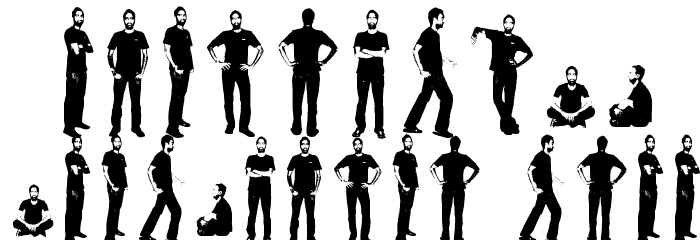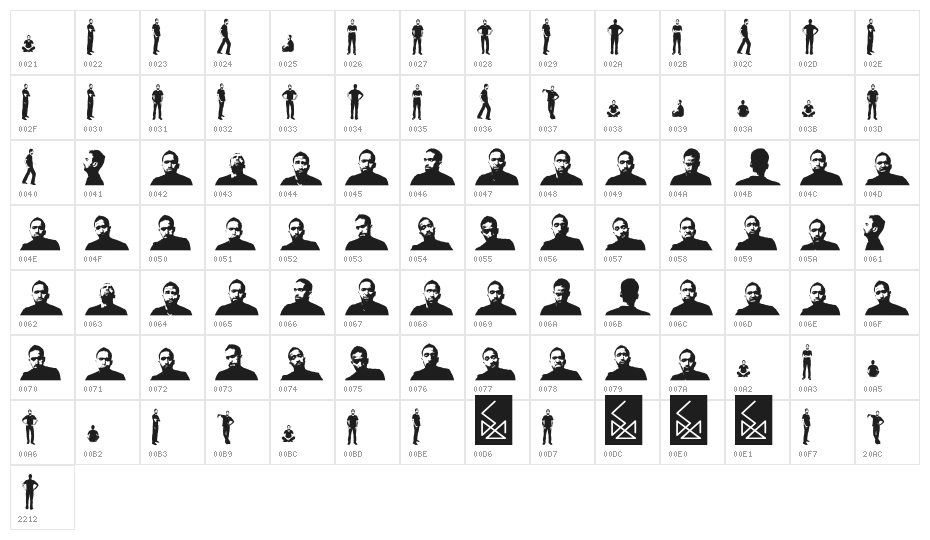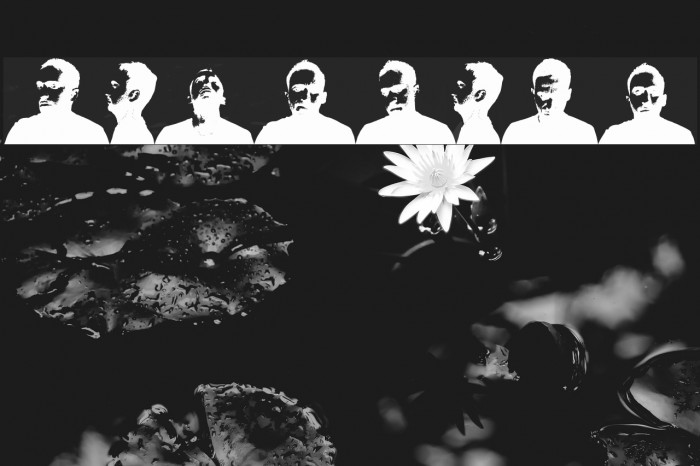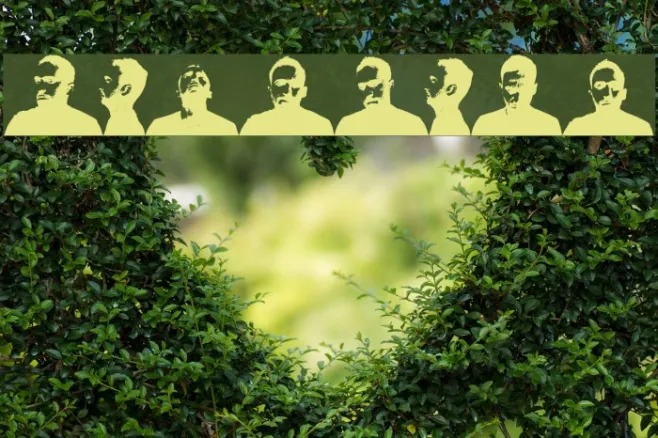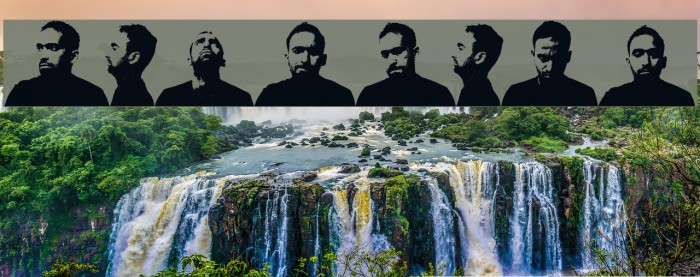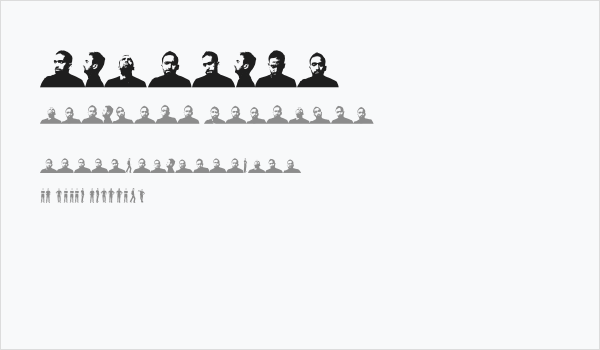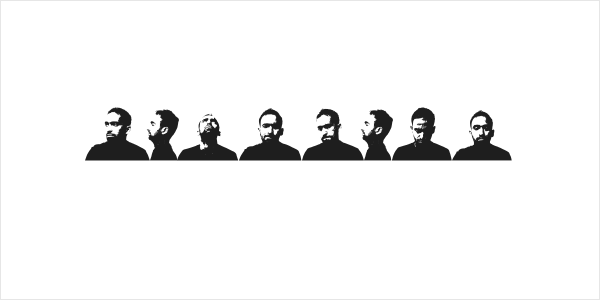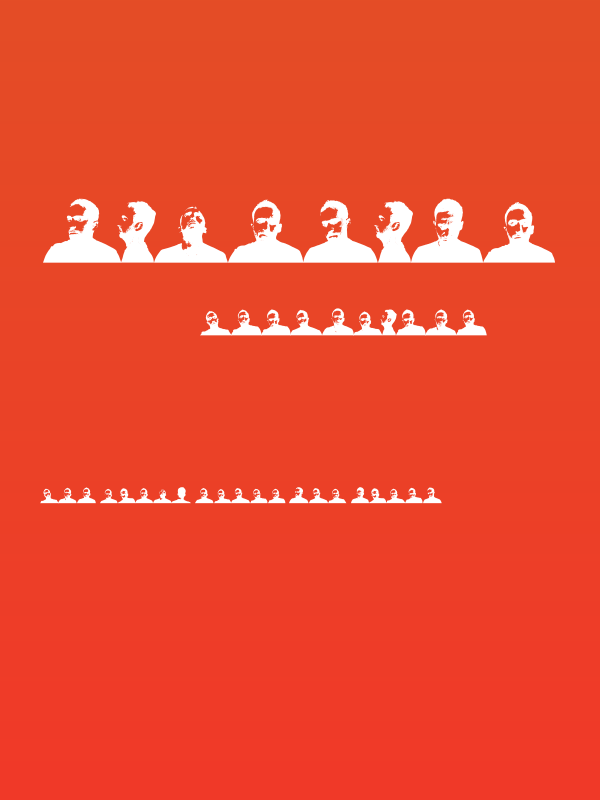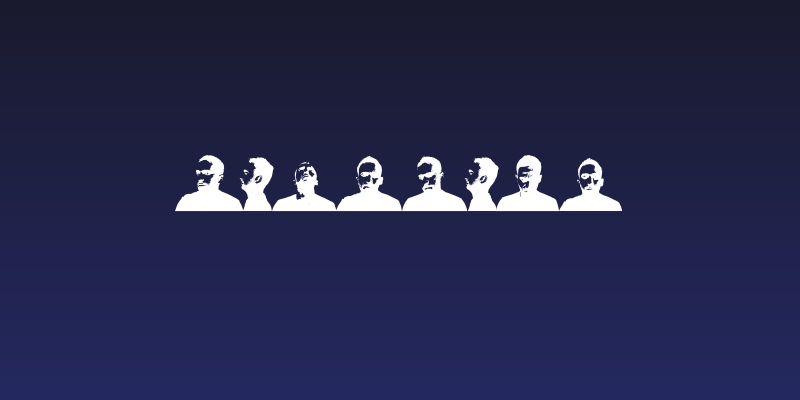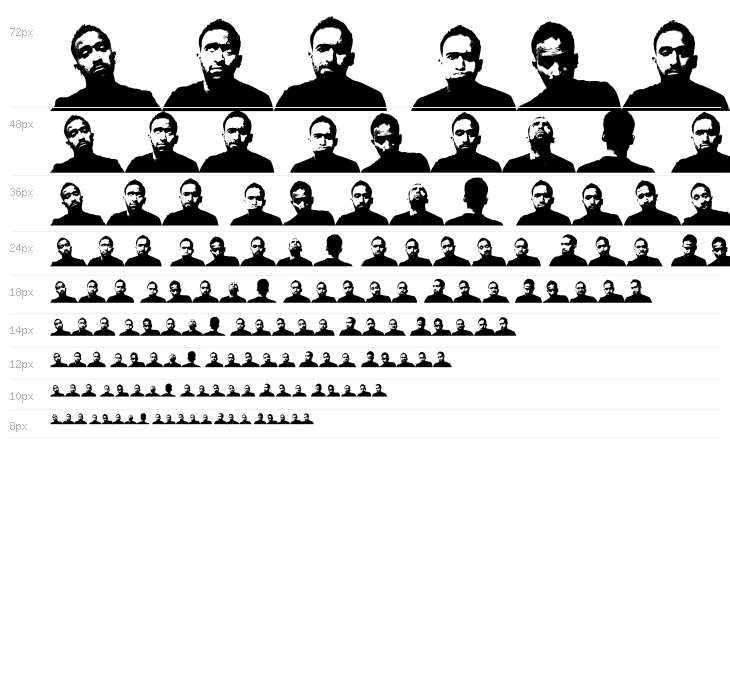
FACEsaji Font
FACEsaji Description
A highly unconventional decorative font where each character is represented by a stylized black-and-white silhouette of a person in various poses and facial expressions, creating a playful and artistic effect. The glyphs are human figures rather than traditional letterforms.
| Overall Style | Artistic, Playful, Experimental |
| Use Case | Logos, Headlines, Posters, Artistic projects |
| Proposed Projects | Posters, album covers, experimental branding, art installations, creative event invitations. |